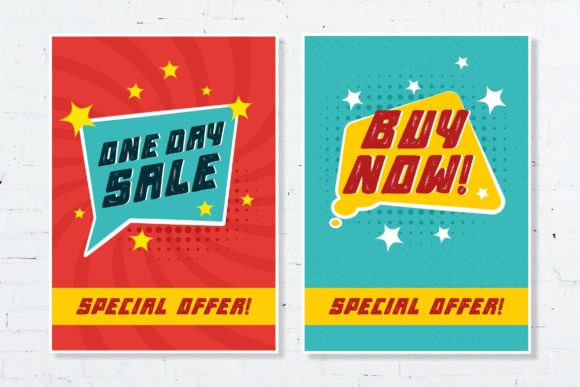
The Vintagity Font
The Vintagity is a unique, vintage like, display font. Friendly and chunky lettered, this font will make each of your designs come alive.